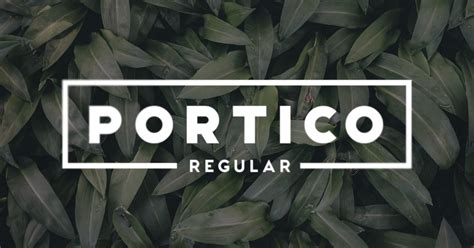
Portico Regular Font. Portico is a display typeface with a ton of styles. Web this font is free for personal use.
It includes uppercase multilingual letters,. Portico is a display typeface with a ton of styles. Web portico regular font. Link to purchase full version and commercial license : Portico is a display typeface with a ton of styles. Votes, rated based on results identification. Web this font is free for personal use.
Portico is a display typeface with a ton of styles. Votes, rated based on results identification. Portico is a display typeface with a ton of styles. Link to purchase full version and commercial license : Portico is a display typeface with a ton of styles. It includes uppercase multilingual letters,. Web portico regular font. Web this font is free for personal use.